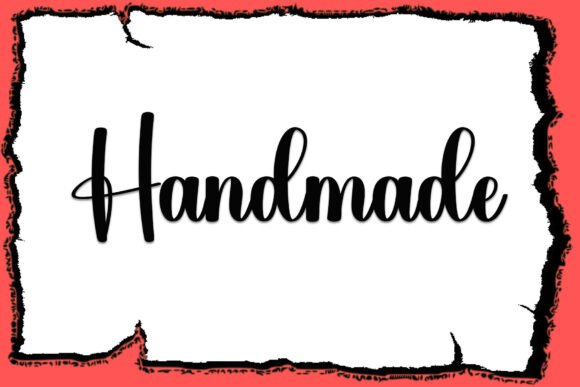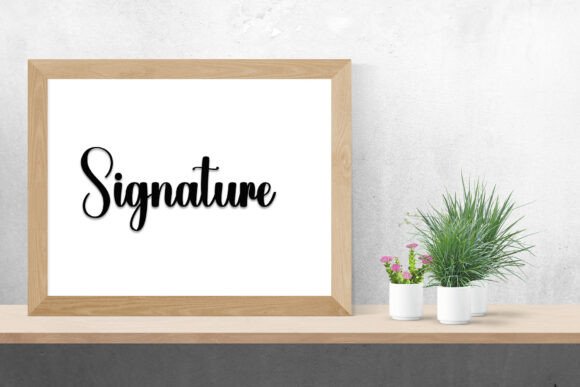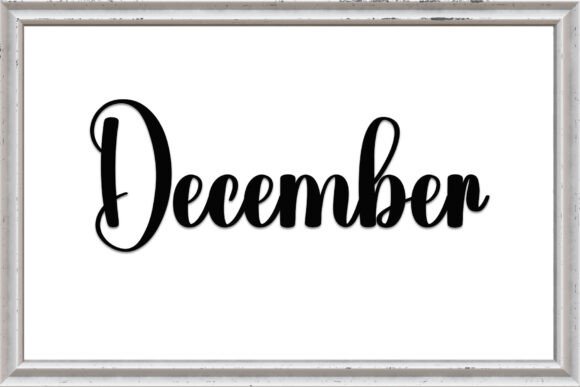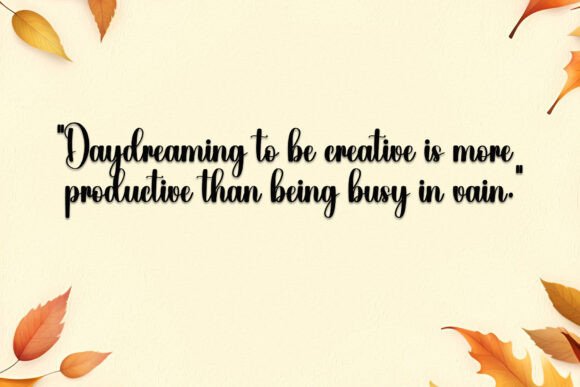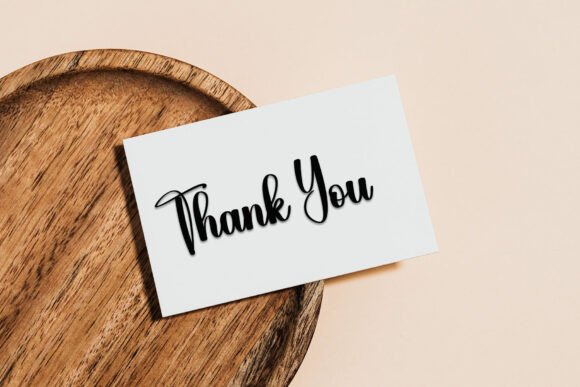
Discover the Timeless Charm of Baby Digital Font
Do you ever find yourself stuck in a creative rut, longing for the perfect font to bring your design to life? That’s exactly how I felt the day I stumbled upon the Baby Digital Font. Its elegant touch and beautiful handwritten style had me hooked from the very first glance.
This lovely font is perfect for adding a touch of sophistication to your favorite projects, making it a valuable asset for designers of all levels. With its incredibly distinct and timeless style, the Baby Digital Font is sure to elevate your designs and leave a lasting impression. Whether you’re a seasoned pro or just starting out, this font is a must-have for any creative project.
Baby Digital Font Key Features
- Unique Characteristics: Hand-drawn, digital font with a playful and modern aesthetic, featuring rounded edges and smooth curves
Review: Baby Digital Font
Overall, I think the Baby Digital Font is a cute and playful addition to any design project. ✨ The rounded edges and soft lines give it a friendly feel, making it perfect for kids’ products, nursery decor, or family-friendly brands.
- ✨ Versatility: The font is suitable for various design applications, from logos to text-based elements.
- ✨ Easy to read: Despite its playful appearance, the font is still legible and easy to read, even at smaller sizes.
- ✨ Customizable: The font comes with a range of styles and weights, allowing designers to experiment and find the perfect fit for their project.
- ⚠️ Limited range of languages: The font may not support all languages, which could be a problem for global brands or projects that require multilingual support.
- ⚠️ Not ideal for formal designs: While the font is perfect for playful designs, it may not be the best choice for formal or professional projects, where a more serious tone is required.
Overall, I think the Baby Digital Font is a great addition to any designer’s toolkit, but it’s essential to consider its limitations and use it judiciously in the right projects.
To get the most out of Baby Digital Font, use it for:
1. Creating playful and whimsical designs.
2. Adding a touch of nostalgia to your projects.
3. Designing for children’s products or educational materials.
Remember to experiment with different font sizes and styles to achieve the desired effect.